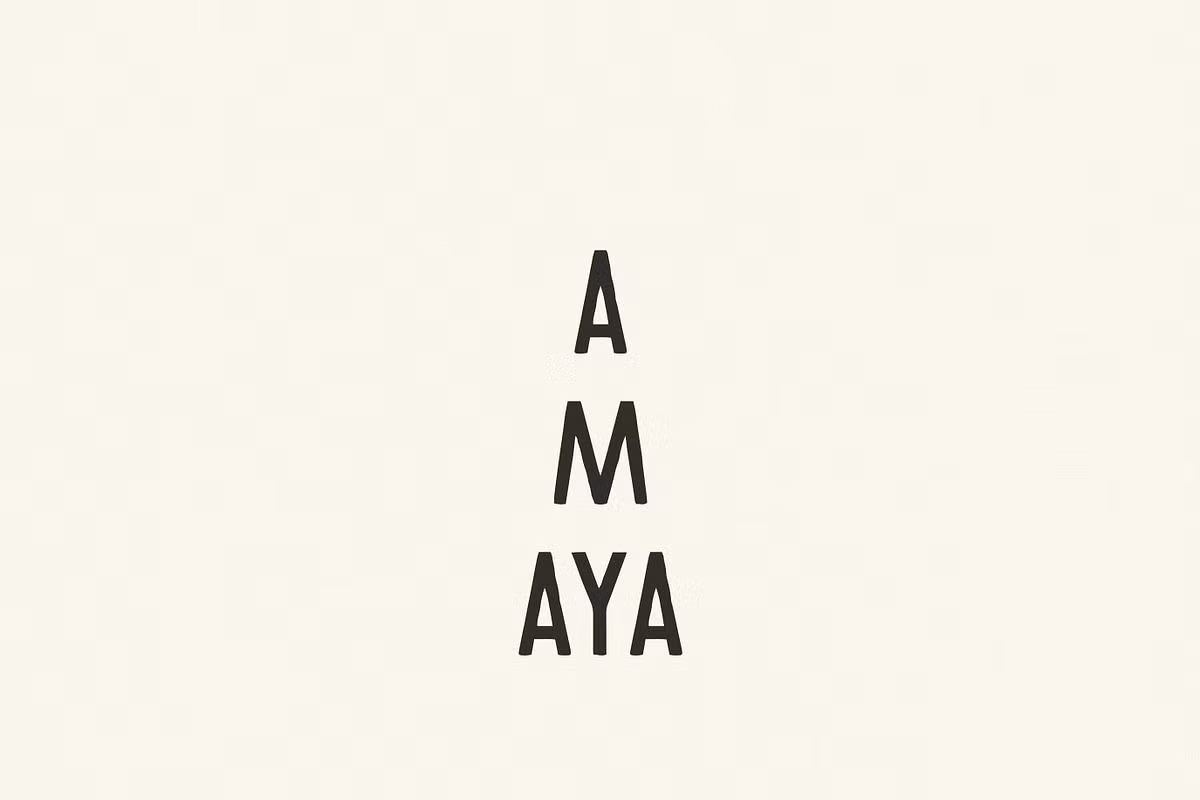
Amaya: Unique Tall Display Typeface Blending Elegance and Rhythm
Introduction to Amaya
Amaya is a one-of-a-kind typeface that’s really tall and catches your eye. It’s like a mix of being tough and elegant at the same time. The way the letters are shaped, with some being really wide, creates a rhythm that’s steady but also feels very human. There’s something a little quirky about this typeface, but it’s also undeniably beautiful, which makes it a great choice for designers and people who love typography. One thing that really stands out is the ampersand – it’s got a unique twist that makes it worth checking out.
Design Style of Amaya
Amaya’s design style is a beautiful mix of modern and traditional elements. The tall letters give it a sense of importance and make it stand out. At the same time, the wide letters add a bit of surprise and make the typeface more interesting. This combination of structure and playfulness makes Amaya perfect for projects that need to look sophisticated but also have some personality. It’s a great choice when you want to make a statement without looking too plain or boring. The way the letters come together creates a sense of rhythm that draws the viewer in and keeps them engaged. Overall, Amaya is a unique and captivating typeface that can add a touch of elegance to any design.
Visual Characteristics
What makes Amaya stand out is its unique look. The letters are tall, which gives them a sense of height and makes them look sophisticated. The wide letters that are spread out throughout the typeface add some fun and break up the routine. This mix of elegance and rhythm makes Amaya a great choice for both big headings and regular text. It’s a typeface that can add some personality to your writing, whether you’re using it to grab attention or to convey a sense of style. The way the letters are designed creates a sense of movement, drawing the eye upwards and making the text feel more dynamic. Overall, Amaya’s visual characteristics make it a versatile and attractive choice for a wide range of uses.
Texture and Weight
Amaya has a really smooth look that makes it easy to read, no matter how big or small you make it. The thickness of the letters can be different, which gives you more options when you’re designing something. So, if you want to make a big impact or just have some regular text, Amaya works well either way – it fits in nicely with whatever you’re using it for.
Character Sets and Glyphs
Amaya has a big set of characters, including capital and small letters, numbers, and lots of punctuation marks – the ampersand really stands out. This big collection of glyphs gives designers what they need to get their ideas across. With special characters included, Amaya is perfect for creative projects that need a one-of-a-kind look. It’s great for designers who want to add some personality to their work. The special characters make it easy to create a unique style that sets your project apart. Whether you’re working on a big project or just something small, Amaya’s characters can help you express yourself in a way that’s all your own.
Special Characters
The ampersand in Amaya is particularly noteworthy. With its elegant curves and unique style, it embodies the essence of the typeface. This character can elevate your design, providing a visual focal point that captures attention. Using it thoughtfully within your compositions can enhance the overall aesthetic and add a sophisticated touch to your work.
Use Cases for Amaya
Amaya has some really special features that make it perfect for all sorts of design projects. Let’s take a look at some of the main ways it can be used.
- Branding: Amaya can be used effectively in logo design, where its tall and elegant style can create a memorable brand identity.
- Posters and Flyers: The typeface’s striking proportions lend themselves well to poster design, ensuring that messages stand out and grab attention.
- Editorial Design: Whether in magazines or online publications, Amaya can be used for headlines and subheadings, adding a touch of sophistication to the layout.
- Web Design: Its readability and unique style make Amaya a good choice for website headers and call-to-action buttons, where a distinct visual hierarchy is essential.
When using Amaya in your designs, pairing it with complementary typefaces can enhance its impact. Here are some pairing suggestions:
- Amaya and Sans-Serif: Pairing Amaya with a clean sans-serif typeface like Helvetica or Arial can create a modern contrast, allowing Amaya’s elegance to shine through.
- Amaya and Serif: Combining Amaya with a classic serif typeface like Times New Roman can evoke a sense of tradition and reliability, perfect for upscale branding.
- For added personality, consider combining Amaya with a script font to introduce fun and playfulness to creative projects.
Amaya is a one-of-a-kind typeface that stands out with its tall and elegant design. It’s a great mix of style and rhythm, making it a fantastic tool for designers. The unique proportions, with some letters being wider than others, and the beautiful characters, like the ampersand, make it versatile and perfect for various design projects. Whether you’re creating a brand identity, designing a poster, or working on an editorial piece, Amaya can add a touch of sophistication and charm to your work. It’s a great way to inspire creativity and elegance in your designs, so consider using it in your next project. With its unique features, Amaya can help you create something truly special and eye-catching. Its beauty and charm can elevate your design and make it stand out from the crowd.